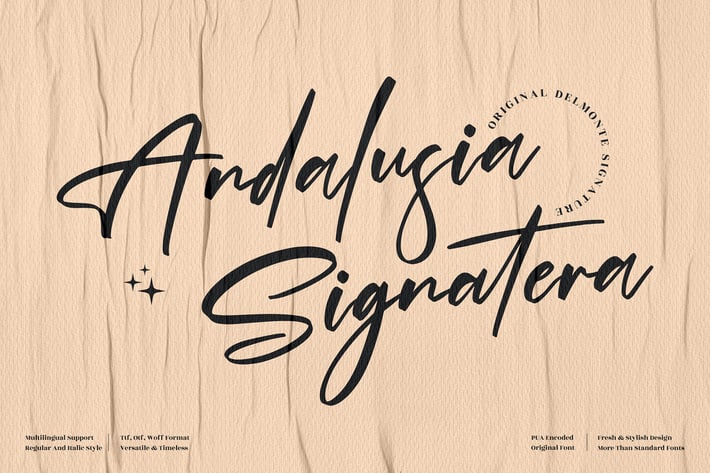
Andalusia Signature Font
Andalusia Signature is a stylish handwritten font with a smooth, natural flow. Its elegant strokes make it a perfect choice for projects that require a modern yet timeless touch. Designed to bring authenticity and sophistication, this font is versatile for both personal and commercial use.
+ Handwritten signature style
+ Regular and italic versions
+ Multilingual support
+ Smooth and timeless design
+ Personal branding & logos
+ Wedding invitations
+ Fashion & lifestyle projects
+ Product packaging
+ Social media posts
+ Photography watermarks
Give your designs a personal and sophisticated touch with Andalusia Signature — timeless elegance in handwritten form.